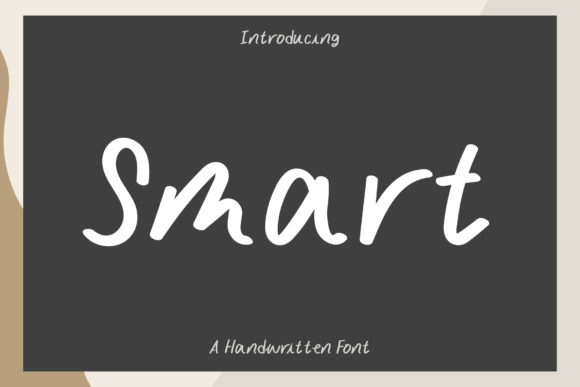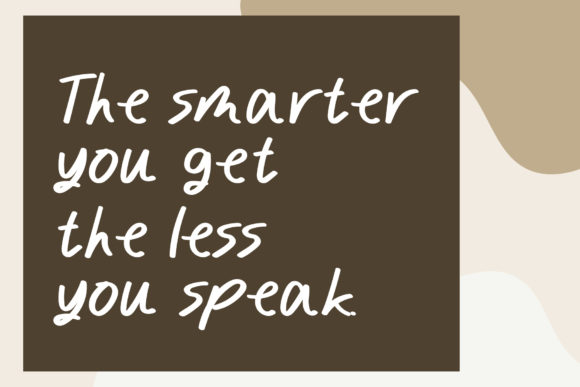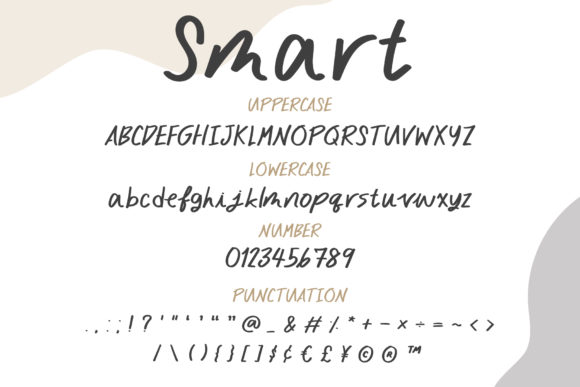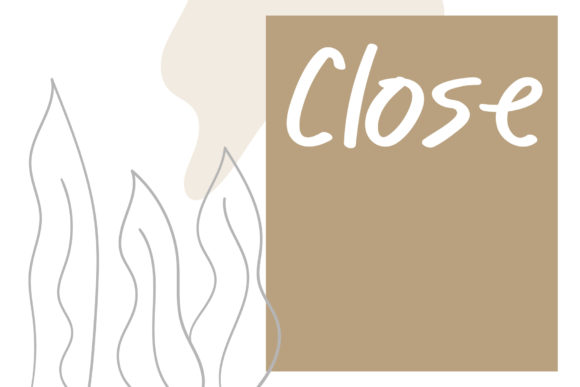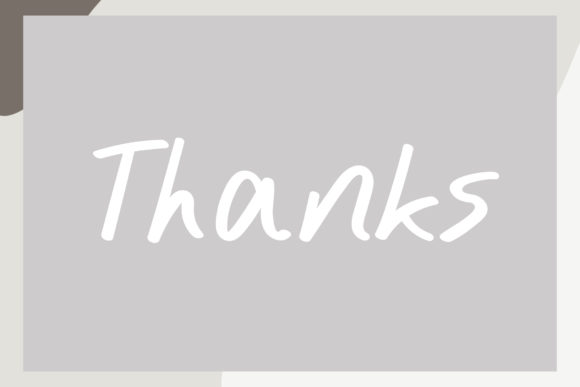
Smart Font
About Smart Font
Smart is a playful handwritten font, carefully handcrafted to become a true favorite. Whether it’s for web, print, moving images or anything else – Smart will look spectacular.